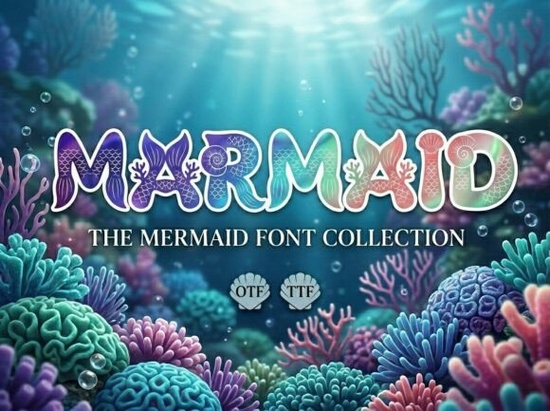
If you're looking for a decorative font that brings instant oceanic charm to your designs without needing illustration skills Marmaid Font is a thoughtful, ready-to-use option. It’s not just another script or serif; it’s a display typeface built around texture, theme, and visual storytelling. Each uppercase letter is shaped like a solid, friendly block but then comes the magic: subtle iridescent fish-scale patterns layered into the letterforms, plus embedded vector motifs like mermaid tails, nautilus shells, and coral branches. You get cohesive design energy right out of the file.
When does Marmaid Font work best?
This font shines where personality and atmosphere matter more than neutrality. Think of projects where the viewer should feel something before they even read the words: a boutique aquarium’s new logo, a children’s book about ocean adventures, custom birthday invites for a “Under the Sea” party, or social media posts for a coastal gift shop. Because the letters carry strong aquatic character, it’s ideal for short headlines, titles, and packaging accents not long paragraphs or body text.
It’s especially helpful if you’re designing for print-on-demand (POD) products. Many sellers use decorative fonts like Marmaid Font on mugs, tote bags, and wall art aimed at parents, teachers, or small-batch gift shops. Its bold outlines and built-in details hold up well when scaled down or printed on textured materials.
How is it different from other decorative fonts?
Unlike many ornamental fonts that rely only on swashes or shadow effects, Marmaid integrates thematic elements into the letter shapes themselves. That means no extra layering or masking in your design software you get the full effect with one font layer. The gradients are baked in as vector fills, so they scale cleanly and stay crisp whether you’re using it at 24 pt on a sticker or 200 pt on a banner.
You’ll also notice it pairs well with simpler, neutral fonts for contrast like clean sans-serifs for subtitles or captions. If you like Marmaid, you might also enjoy Lunar Mystic Font, which offers a similarly rich, hand-crafted feel but leans into celestial themes instead of underwater ones. Or try Felon Font for a bolder, more graphic alternative with sharp edges and high-contrast letterforms.
No ligatures or alternate characters just 26 uppercase letters, numbers 0–9, and basic punctuation. That keeps things straightforward, especially if you’re not deeply familiar with OpenType features. And because it’s a single-weight display font, there’s no confusion about which style to choose: what you see is what you get.
Who uses Marmaid Font and how?
We’ve seen crafters use it for heat-transfer vinyl projects on kids’ tees, teachers create themed classroom posters, and indie authors build eye-catching Amazon KDP covers. Small businesses love it for seasonal signage think “Summer Sale” banners with subtle wave textures behind the letters, or “Open Daily” signs for beachfront cafes.
One practical tip: test how it prints before committing to large batches. Some printers soften fine gradients, so a quick proof on your home printer or local copy shop helps confirm color depth and edge clarity. Also, keep line spacing generous its tall capitals and detailed interiors need breathing room.
- It’s uppercase-only no lowercase letters or special accented characters.
- Best for short text: headlines, logos, quotes, and labels not paragraphs or websites’ main body text.
If you’re already working on an ocean-themed project or just want a reliable decorative font that feels fresh but not fussy Marmaid Font is worth trying. Start simple: drop it into a mockup of a gift tag or Instagram story headline, adjust size and spacing, and see how quickly it sets the tone. No overthinking needed just pick a color, pair it with something clean, and go.